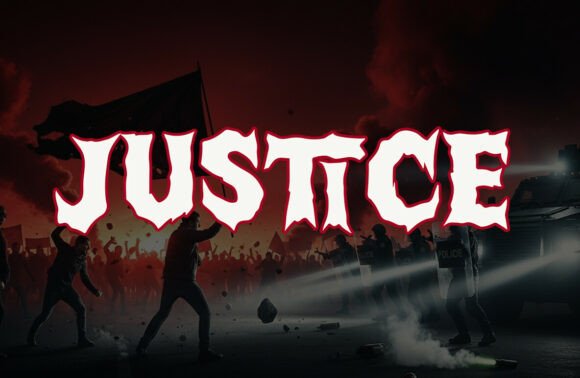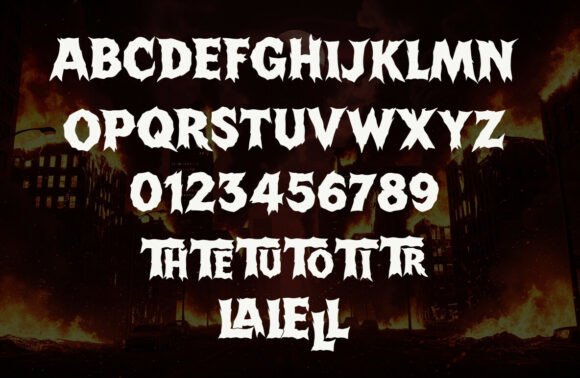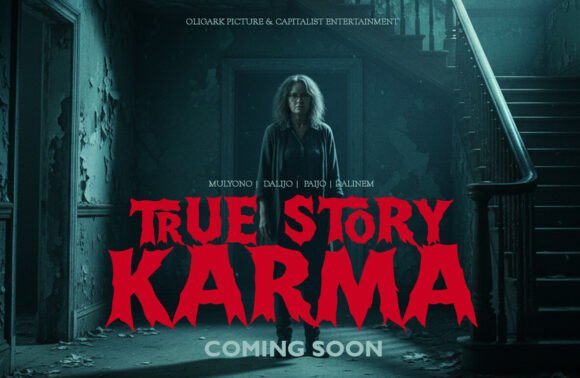
Unleash the Horror: Introducing Friday Tragedy Font
Are you a designer or crafter looking for a font that can evoke the eerie and terrifying atmosphere of a nightmare? Look no further than the Friday Tragedy Font, a hand-drawn horror font that drips with blood and terror. This font is perfect for creating chilling impressions that linger long after the first glance, making it ideal for movie titles, thriller book jackets, Halloween invitations, or eerie social media content.
The Essence of Fear
Friday Tragedy Font is designed to capture the essence of classic slasher posters and blood-soaked horror covers. Each stroke feels raw and frantic, like desperate scratches on the walls of a haunted asylum. The font’s dripping forms and jagged details create a sense of unease and fear, making it perfect for designers who want to create a chilling and eerie atmosphere in their work.
Hand-Drawn with Love and Terror
Friday Tragedy Font is a hand-drawn font, created with love and terror to ensure that each letter and symbol is unique and full of character. The font’s hand-drawn nature gives it a personal and organic feel, making it perfect for designers who want to add a touch of humanity to their work. The font’s creator has poured their heart and soul into designing each letter, ensuring that the font is both terrifying and beautiful.
Perfect for Horror and Thriller Designs
Friday Tragedy Font is perfect for designers who want to create horror and thriller designs that will leave their audience shivering with fear. The font’s chilling and eerie atmosphere makes it ideal for:
- Movie titles and posters
- Thriller book jackets and covers
- Halloween invitations and decorations
- Eerie social media content and graphics
- Horror and thriller video games
Tips for Using Friday Tragedy Font
Here are some tips for using Friday Tragedy Font in your designs:
- Use it sparingly: Friday Tragedy Font is a bold and attention-grabbing font, so use it sparingly to avoid overwhelming your audience.
- Pair it with a simple background: The font’s bold and intricate details can be overwhelming, so pair it with a simple background to make it stand out.
- Experiment with colors: Friday Tragedy Font looks great in bold and bright colors, so experiment with different colors to find the one that works best for your design.
- Use it in combination with other fonts: Friday Tragedy Font can be used in combination with other fonts to create a unique and eye-catching design.
Friday Tragedy Font is a hand-drawn horror font that is perfect for designers and crafters who want to create chilling and eerie designs. Its bold and intricate details, combined with its hand-drawn nature, make it a unique and terrifying font that is sure to leave a lasting impression. Whether you’re creating movie titles, thriller book jackets, Halloween invitations, or eerie social media content, Friday Tragedy Font is the perfect choice.